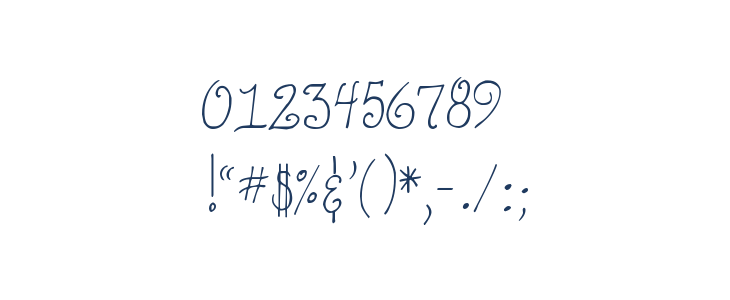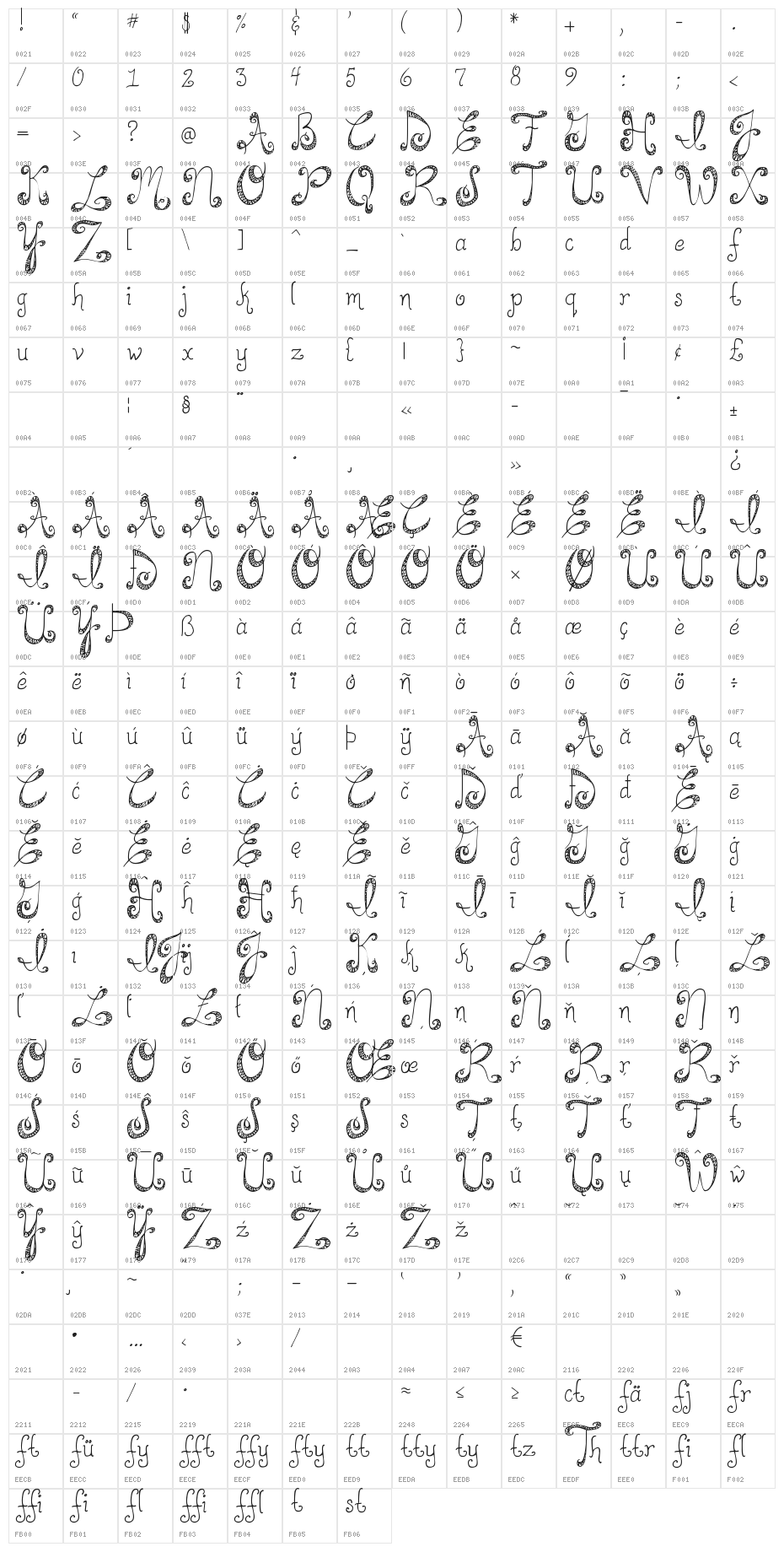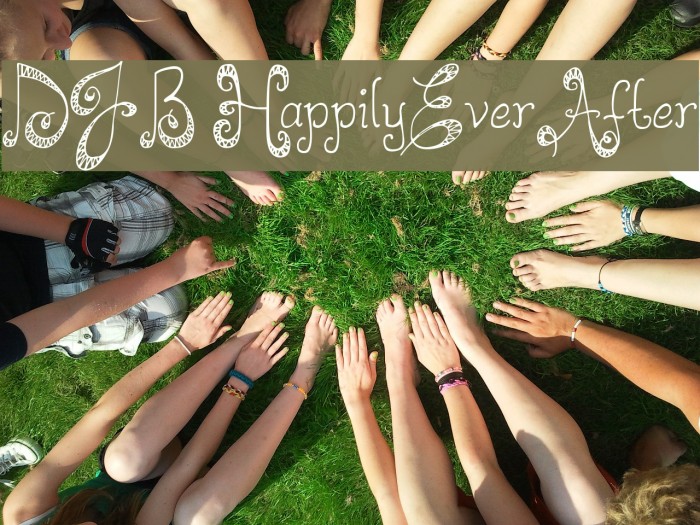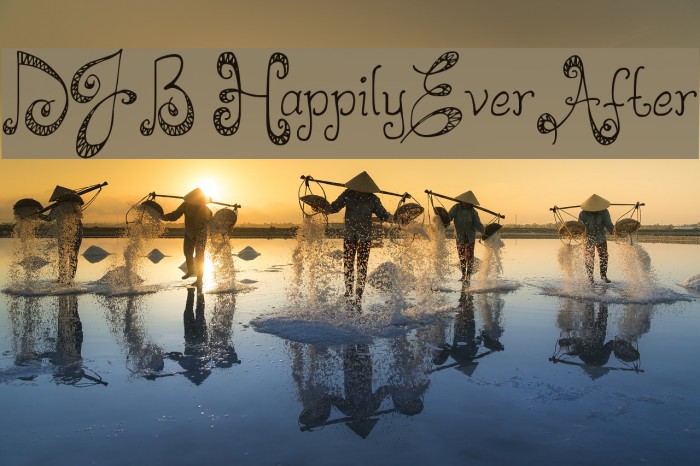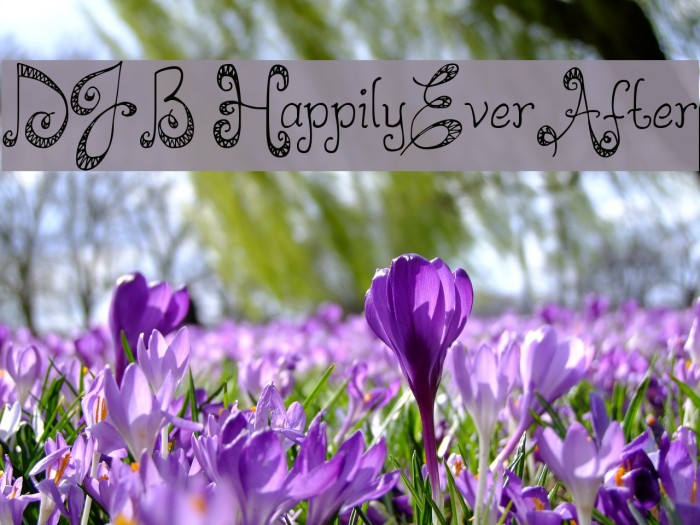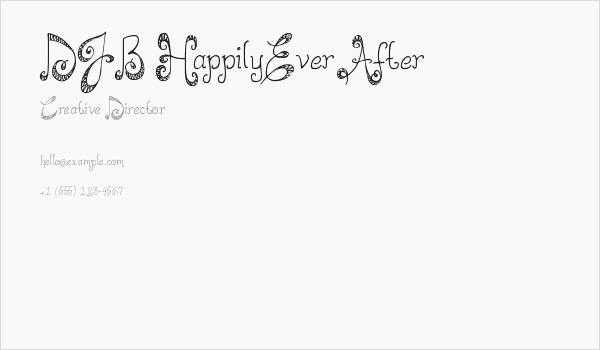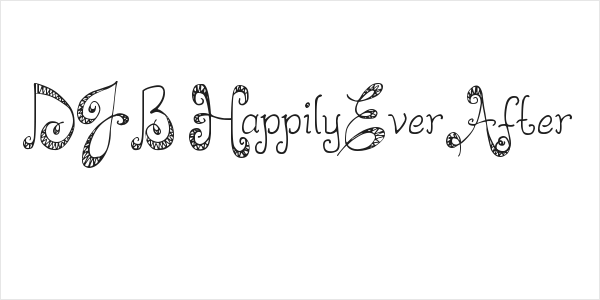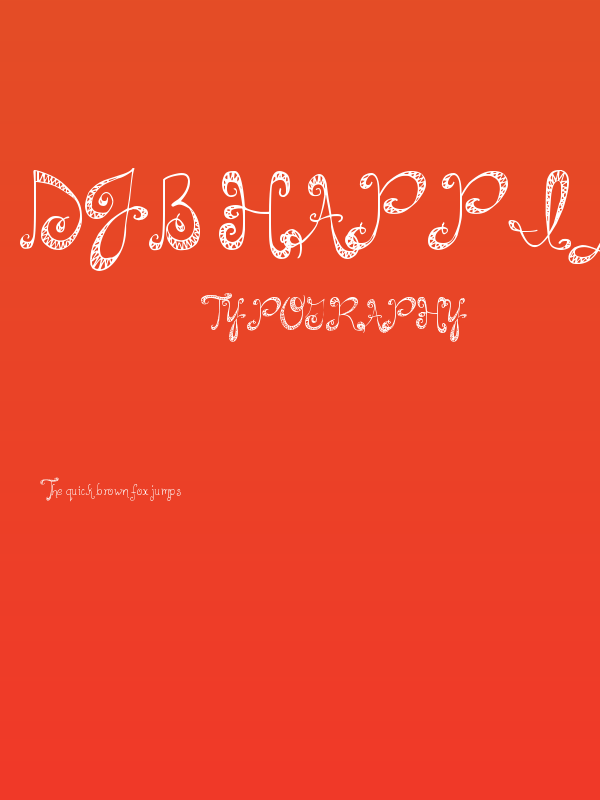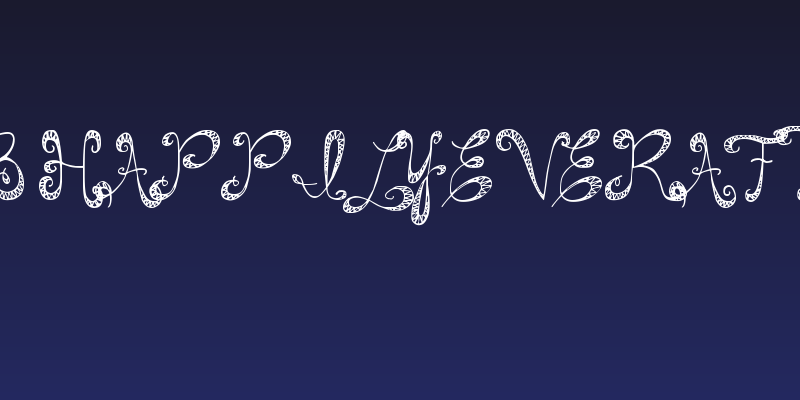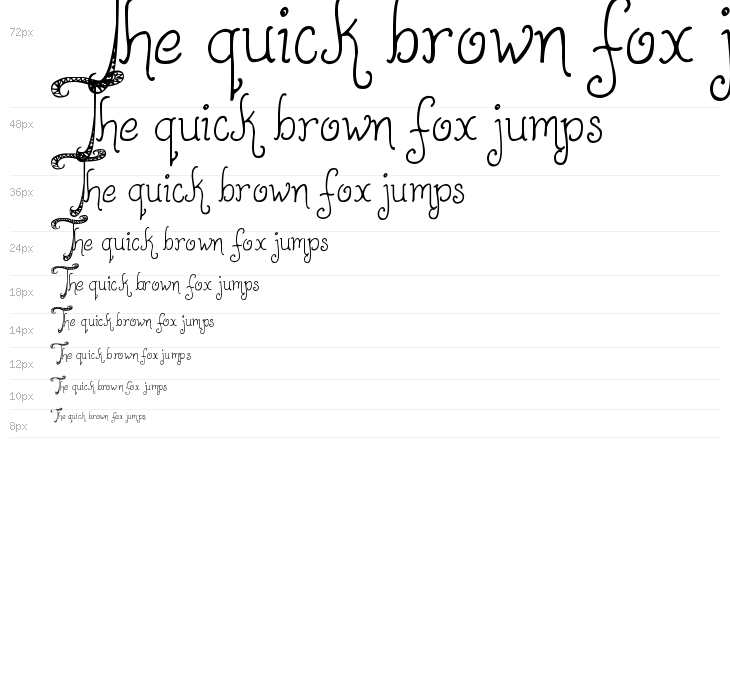
DJB HappilyEverAfter Font
DJB HappilyEverAfter Description
This whimsical and playful font features a unique, hand-drawn style with intricate patterns within the uppercase letters, giving it a decorative and artistic flair. The lowercase letters maintain a more straightforward, yet still playful, handwritten appearance. The numbers and special characters complement the overall style with their quirky and slightly irregular shapes. This font exudes a sense of fun and creativity, making it ideal for projects that require a touch of whimsy and individuality.
| Proposed Projects | Ideal for greeting cards, children's book covers, playful branding, and creative invitations. |